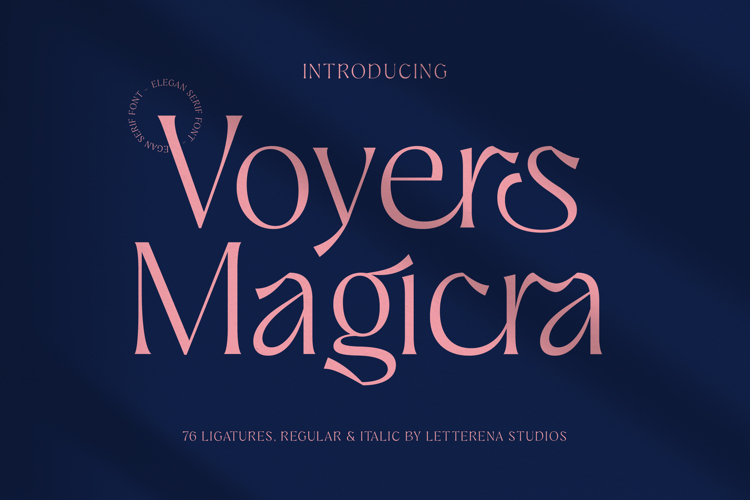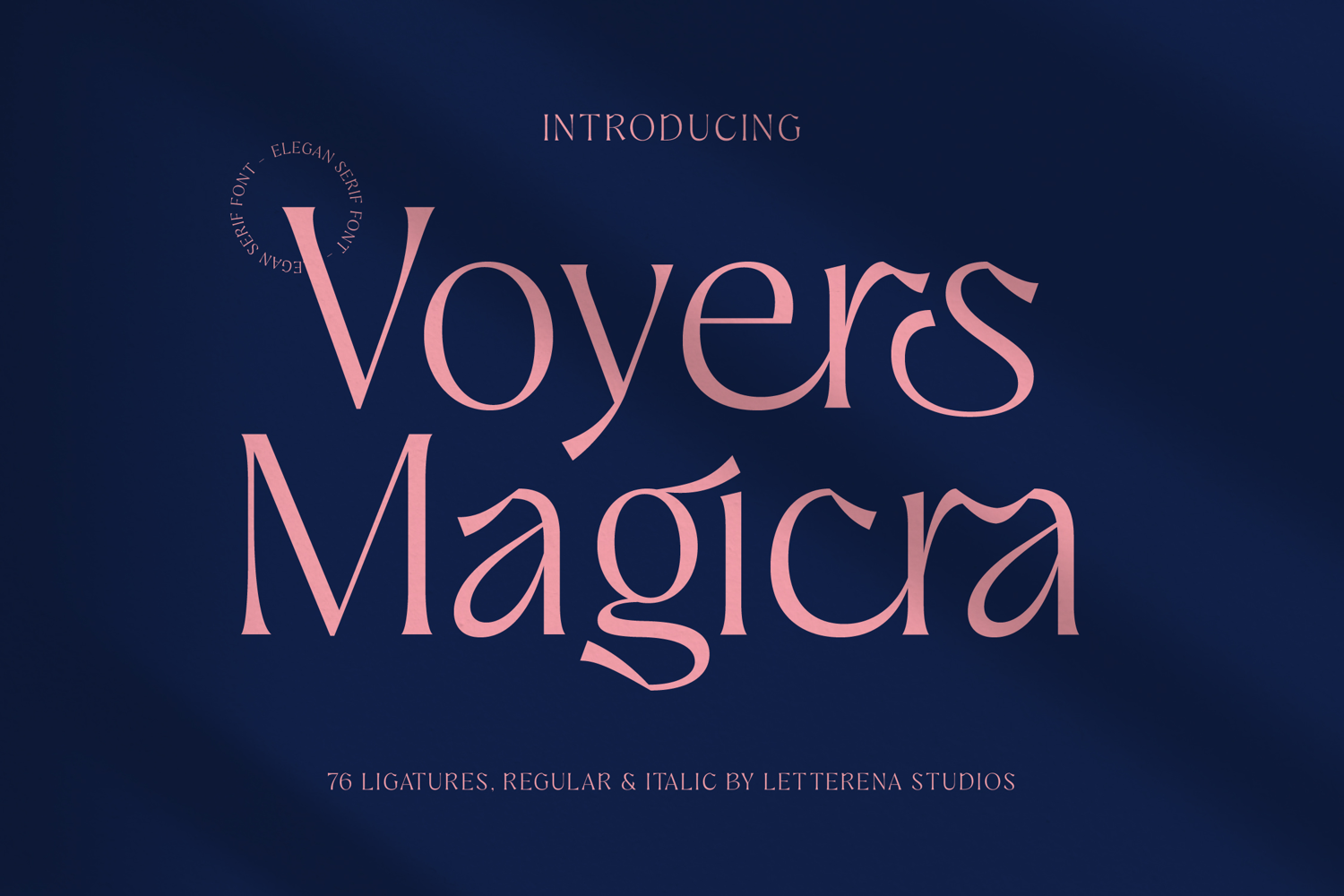
Voyers Magicra - Elegant Serif Font
Discover the epitome of typographic elegance with Voyers Magicra - Elegant Serif Font. This exquisite typeface masterfully blends classic serif sophistication with a contemporary edge, featuring high-contrast strokes and delicate, sweeping curves. It radiates an inherent sense of luxury and refinement, immediately elevating any design project to an unparalleled standard of visual appeal.
Unleash unparalleled creative potential with Voyers Magicra - Elegant Serif Font. Its distinctive character designs, coupled with an impressive array of 76 ligatures, offer exceptional customizability and typographic flair. From striking headlines to engaging body copy, this font ensures your message is not only read but truly felt, creating a memorable and impactful presence.
With its extensive multilingual support, Voyers Magicra - Elegant Serif Font adapts seamlessly across global markets, making it incredibly versatile for international projects. This feature ensures your brand maintains its sophisticated voice and aesthetic integrity, regardless of language. It's an indispensable asset for businesses aiming for global reach and diverse audience engagement.